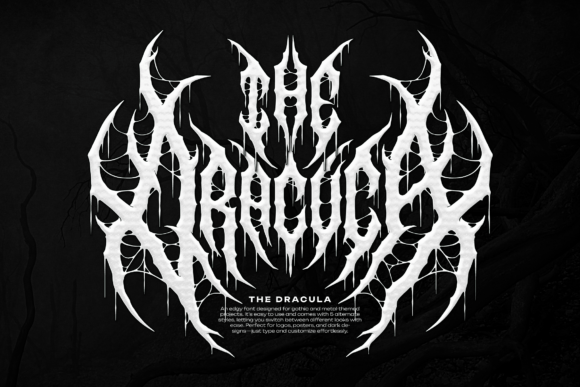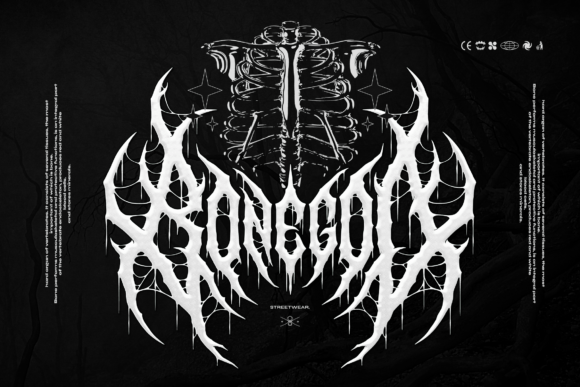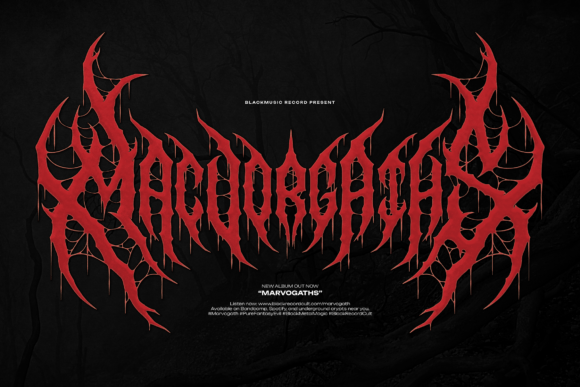
Introduction to Night Corvian Font
Step into the abyss with Night Corvian, a black metal font born from chaos and darkness.
With razor-sharp, branching strokes and sinister symmetry, this font captures the raw, aggressive energy of extreme metal logos Ideal for band branding, album covers, horror artwork, and merch that craves a truly brutal aesthetic.